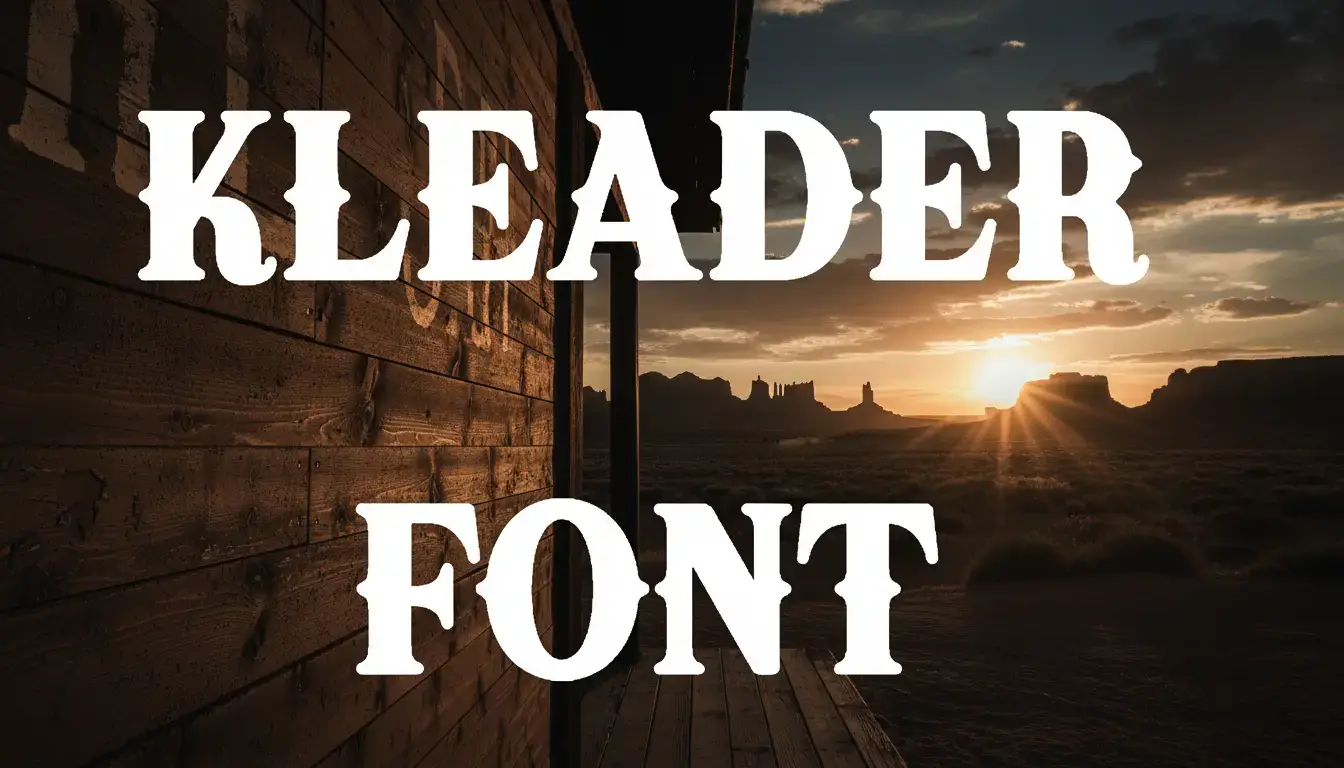
Kleader Font
Kleader
Kleader is a Western font designed by Edi Gunawan and published by Edignwn Type. It has the bold, wood-type look of Wild West wanted posters and saloon signs. It's a free download, and you can try it with your own text in the preview above first.
What You Can Type With Kleader
You get every letter from A to Z in both cases and all the numbers from 0 to 9, which means Kleader can handle full sentences, dates and prices. Common punctuation such as &, !, ? and @ is included as well. It has 1 accented letters, but not the full set for Spanish or French, so test any non-English words first.
Where Kleader Works Best
Kleader is a natural fit for rodeo posters, saloon signs and country music flyers. Try it in brown, rust or cream on a paper texture for the full old-west look.
What fonts pair well with Kleader?
A sturdy slab serif or a simple serif works well for the smaller text.